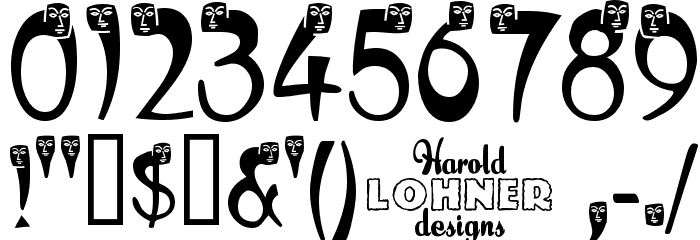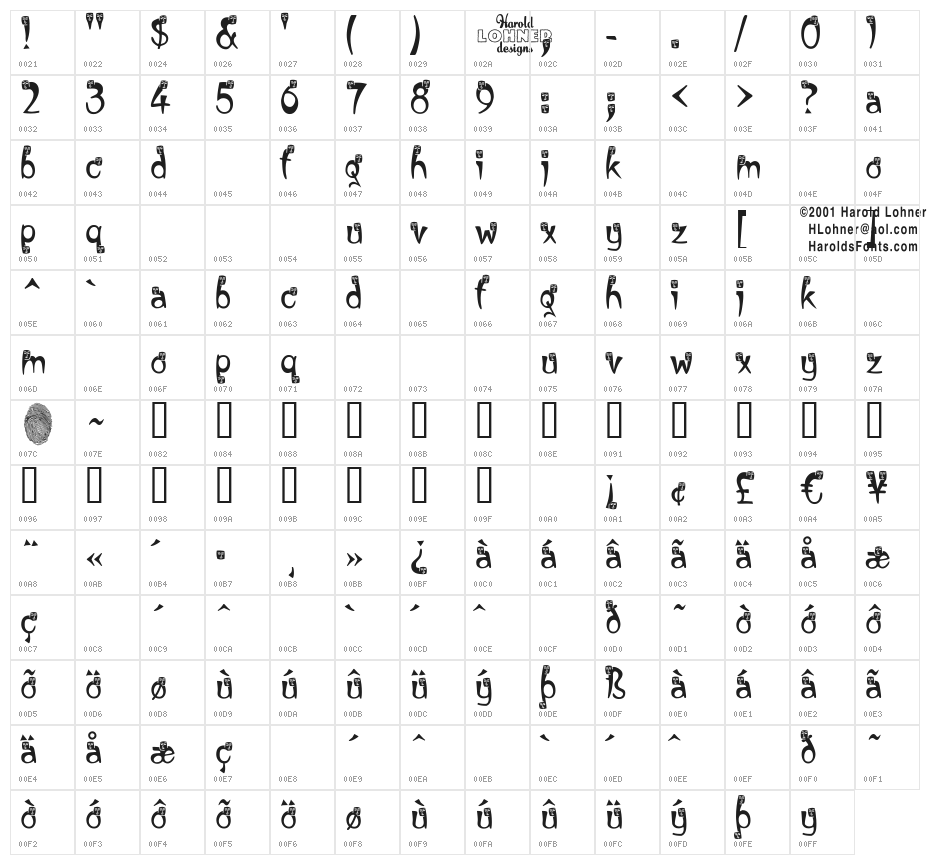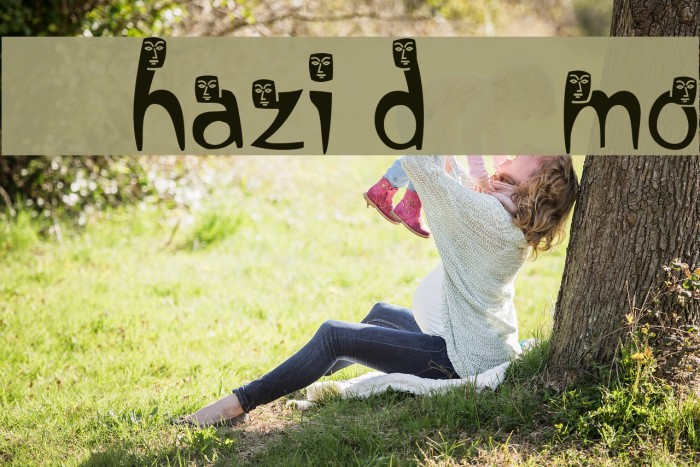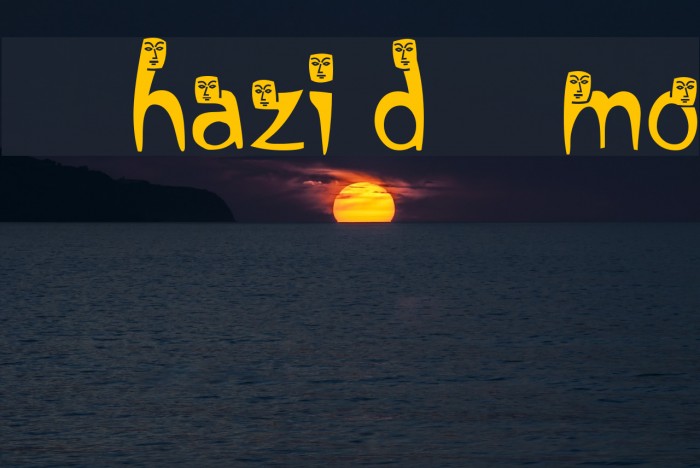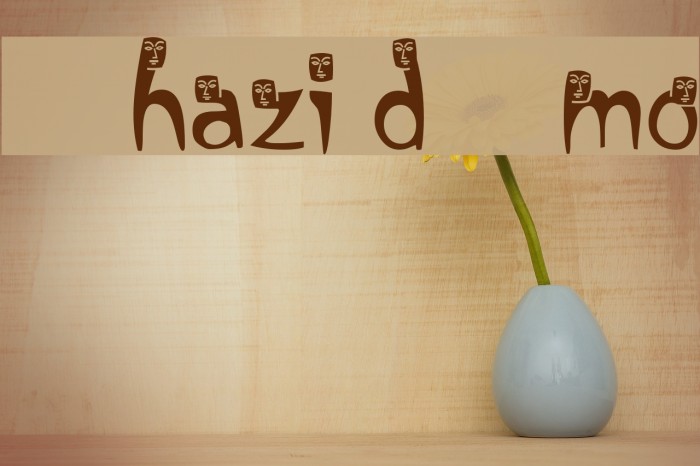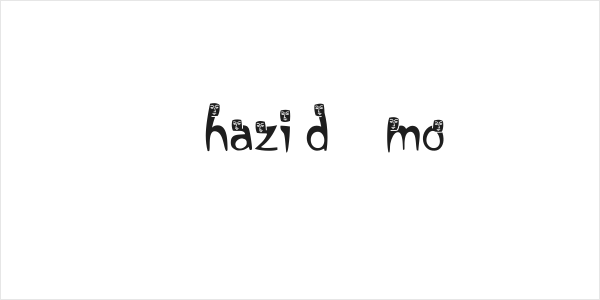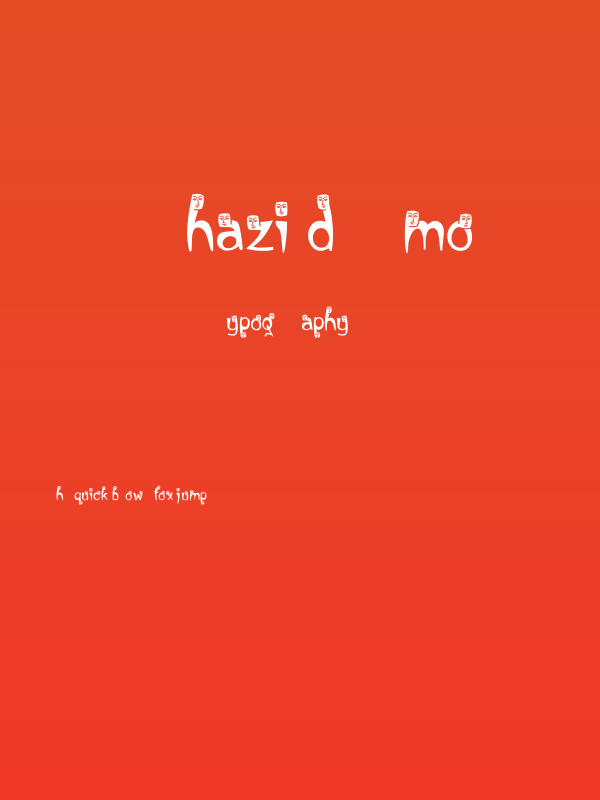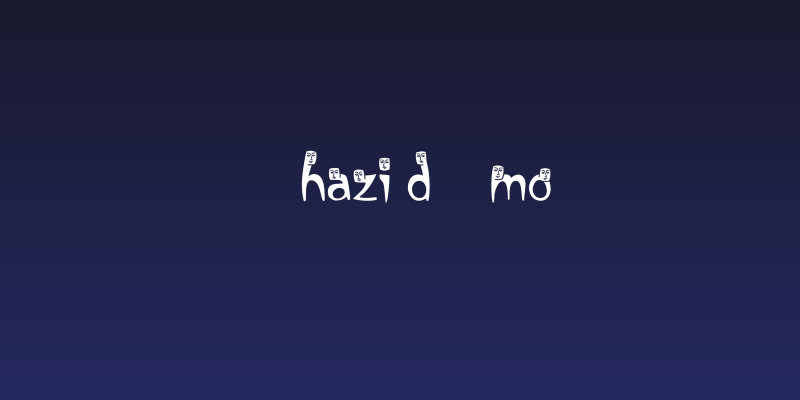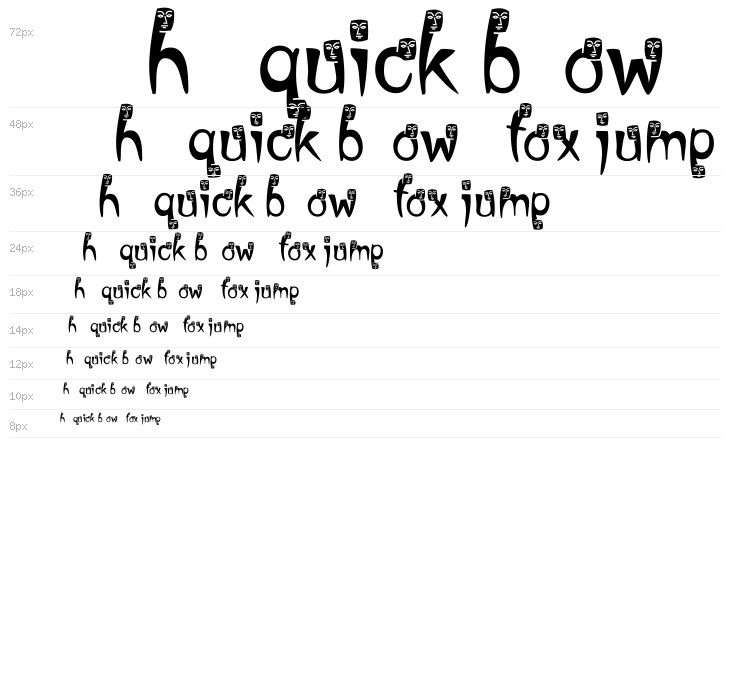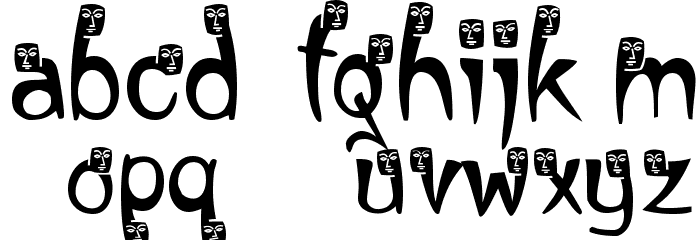
Shazi DEMO Font
Shazi DEMO Description
This font features a unique and playful design with each character incorporating a stylized face, giving it a whimsical and artistic flair. The characters are bold and have a distinct personality, making them stand out. The uppercase and lowercase letters maintain a consistent style, with exaggerated curves and angles that add to the font's charm. Numbers and special characters follow the same design principle, ensuring a cohesive look across all elements. This font is perfect for creative projects that require a touch of humor and individuality.
| Proposed Projects | Ideal for children's books, playful branding, creative posters, and unique invitations. |